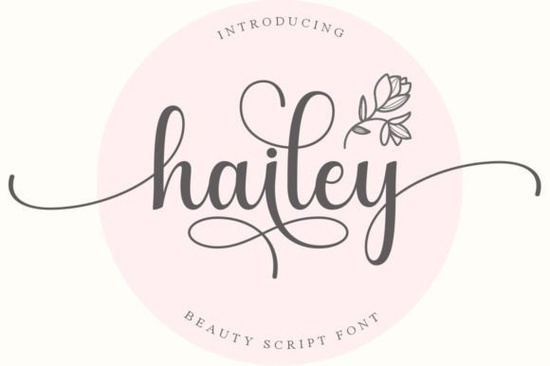
If you're looking for a handwritten font that feels personal, graceful, and quietly confident without being overly fussy Hailey Font is worth your attention. It’s not flashy or trend-driven; instead, it carries a soft, natural rhythm that works just as well on a wedding invitation as it does on a small-batch soap label or a handmade greeting card. Designed with real pen movement in mind, Hailey balances legibility and character in a way that many script fonts struggle to achieve.
What makes Hailey different from other script fonts?
Unlike some handwritten fonts that rely heavily on bounce, sharp angles, or exaggerated flourishes, Hailey moves with gentle curves and consistent spacing. Its lowercase letters connect smoothly, but never feel forced or cramped. Uppercase letters have subtle variation not so much that they distract, but enough to add visual interest when used in short headlines or monograms.
The fact that it’s PUA encoded matters more than it might sound at first glance. That means all alternate glyphs, swashes, and ligatures are accessible directly from your keyboard no need to dig through glyph panels or install extra files. If you’ve ever spent 15 minutes trying to find the right “&” or initial swash in another font, you’ll appreciate how straightforward Hailey keeps things.
Where does Hailey fit among other script fonts?
It sits comfortably between delicate and practical closer to pink pastel script fonts in tone, but with more structure than many of those. It shares warmth with popular hello-themed script fonts, but avoids cutesy exaggeration. And while it’s clearly handwritten, it reads more cleanly than some loose handwritten fonts, especially at smaller sizes (think 14–18 pt for body text in printed stationery).
You’ll also notice it pairs well with minimalist sans-serifs think Montserrat, Poppins, or even basic system fonts like Inter or Helvetica Neue. That versatility helps it stand out in the alignment-focused script font category, where readability and typographic harmony matter more than ornamentation.
Who actually uses Hailey and how?
Print-on-demand sellers often choose Hailey for mugs, tote bags, and wall art where warmth and approachability matter. Because it scales well, it holds up even when resized for Instagram product mockups or Etsy thumbnails. One small business owner told us she uses it for “thank you” tags inside her candle boxes it feels handmade without requiring actual handwriting.
Crafters appreciate how easily Hailey cuts on Cricut and Silhouette machines. The clean joins and moderate stroke contrast reduce cutting errors, especially on vinyl or thin paper. And since swashes are built-in and keyboard-accessible, swapping out a standard “t” for a swash version takes one keystroke not a trip to the Glyphs panel.
Small businesses use it for email headers, social bios, and simple logos where a full custom logotype isn’t in the budget. It’s not a logo font per se, but it works beautifully for secondary branding elements like a tagline under a wordmark or a seasonal banner on a Shopify homepage.
How to get the most out of Hailey Font
Start simple: try it in all-lowercase for a soft, intimate feel great for journal covers or recipe cards. Then experiment with uppercase + swashes for names or titles. Avoid overusing alternates; one or two per line is usually enough to keep it feeling intentional, not chaotic.
Remember that spacing is key. Hailey benefits from slightly increased letter-spacing (tracking) in larger display sizes around 10–20 units in design apps like Canva or Illustrator. In smaller text, default spacing works fine. Also, avoid stretching or skewing the font. Its charm comes from its natural proportions, not distortion.
If you’re comparing options, consider how Hailey stacks up against similar styles like Hailey Font, Alignment Font, or Hello Font. Each has its own voice but Hailey stands out for quiet confidence and ease of use.
A quick checklist before you download
- ✅ You need a script font that works across digital and print projects
- ✅ You want built-in swashes and alternates no extra steps to access them
- ✅ You value clarity alongside elegance (no squinting required)
- ✅ You’re okay with a style that leans classic rather than ultra-trendy
- ✅ You’ll be using it for short phrases, names, or headings not long paragraphs
If those match your needs, Hailey Font is likely a solid fit. Try pairing it with neutral colors and plenty of white space you’ll see how its simplicity becomes its strength.